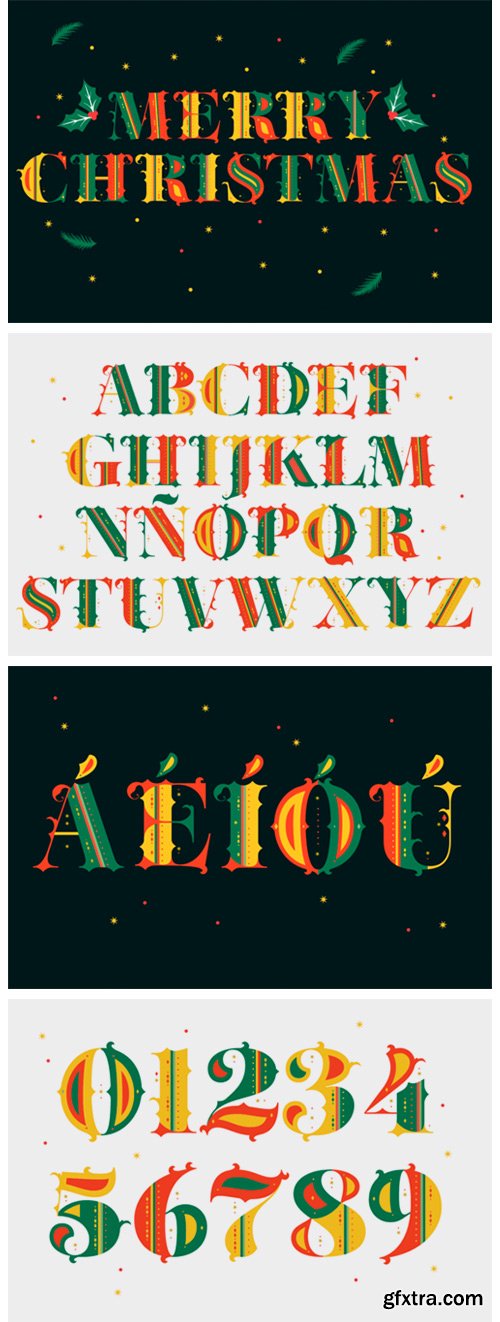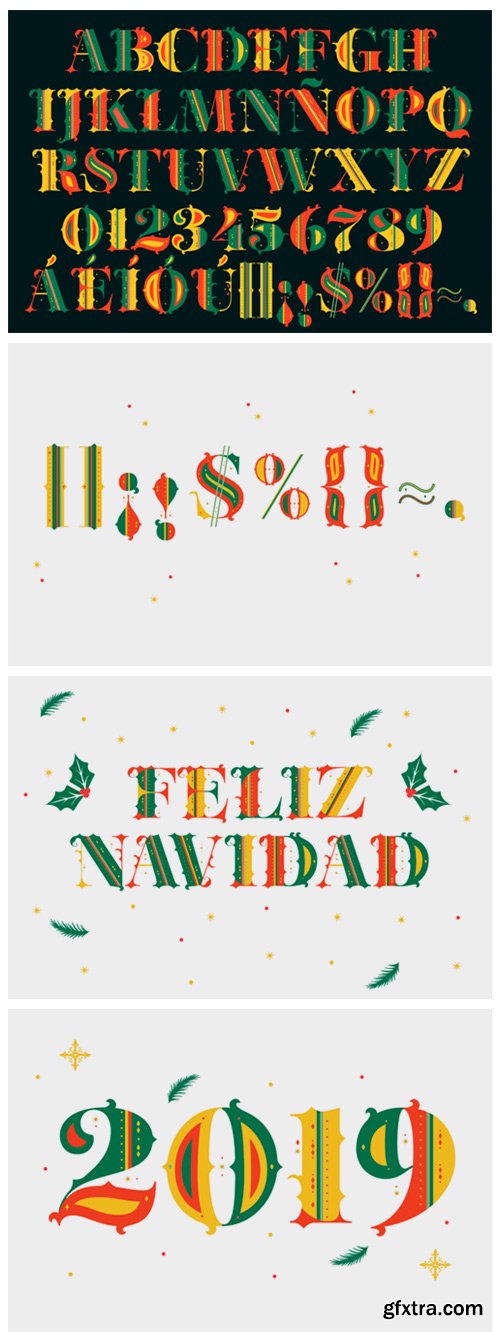
Merry Christmas Font
Merry Christmas is the perfect crafting font for Christmas or Hannukah. It’s both beautiful and decorative and will add a jolly feel to any design idea!